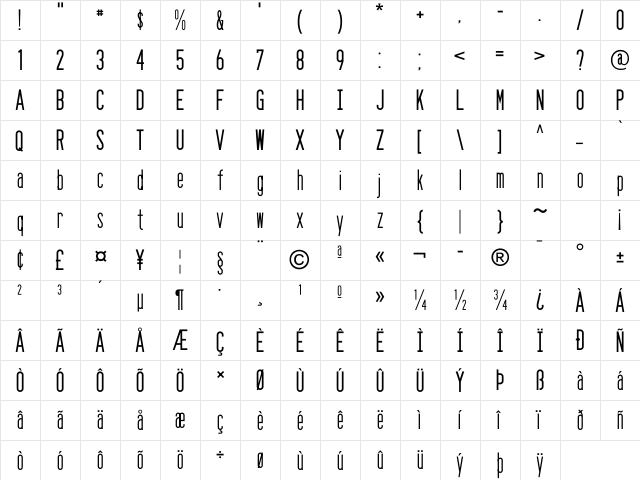
Seattle Sans Regular
Seattle Sans is a composed and adaptable typeface that performs quietly and consistently across a wide range of design contexts.